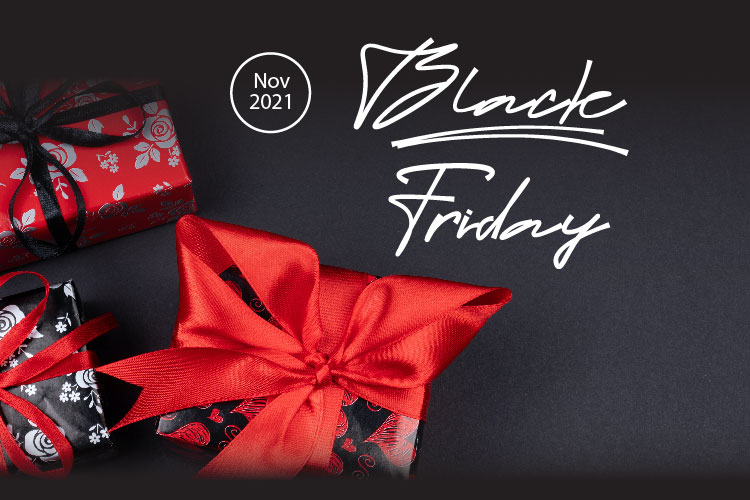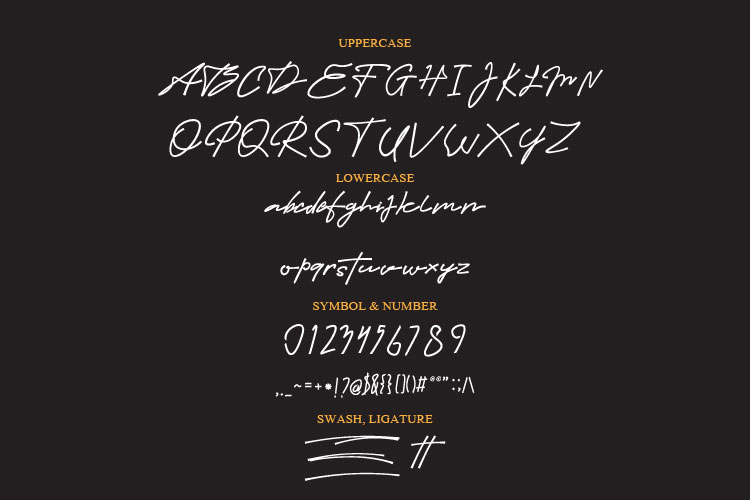
Barack Font
Barack Handwritten Font
It’s a modern signature script font that has strong and stylish characters with some ligatures t make it unique and beautifully flowing. Let your imagination wild and use this font to create amazing designs!